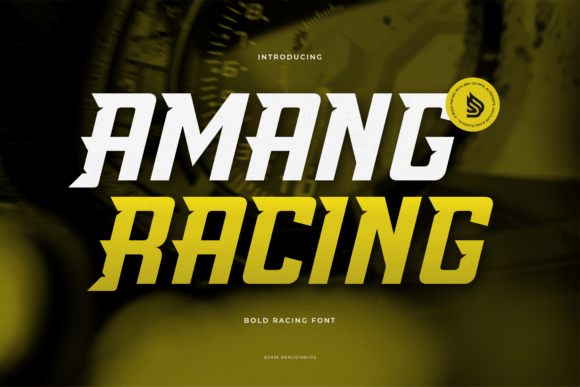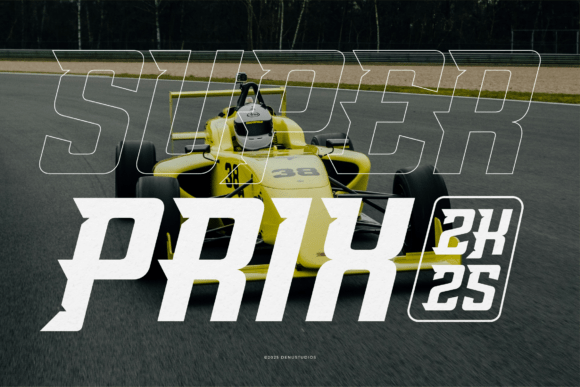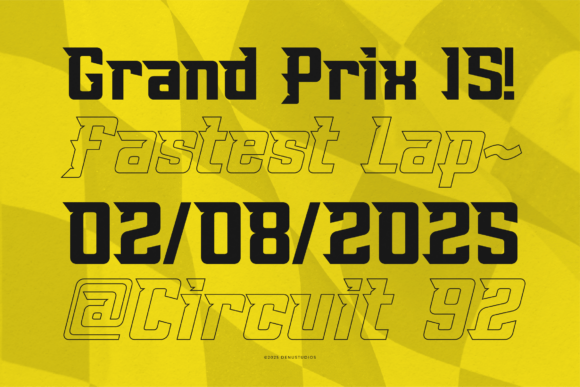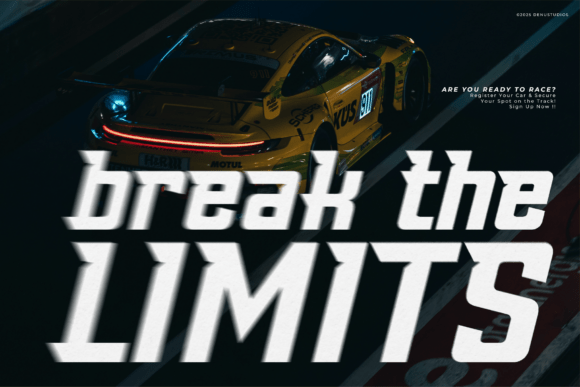
Amang Racing Font
About the Amang Racing Font
The Amang Racing Font is here to transform your projects with its distinctive character and style. Feel the adrenaline rush with Amang Racing, a bold, high-energy typeface designed for speed and power. With its sharp angles and slanted structure, this font is perfect for motorsports branding, racing posters, sports apparel, and futuristic designs. Whether you’re creating a dynamic logo or an action-packed headline, Amang Racing will take your design to the finish line.
Amang Racing’s aggressive slant and sharp geometry make it ideal for headlines, short impactful slogans, and logo design where a sense of speed and power is crucial. It excels in applications like posters, game branding, and packaging for high-performance products. However, its condensed letterforms and aggressive style are unsuitable for body text or UI elements requiring high readability. Avoid using it for long paragraphs or anything needing significant amounts of text.
For optimal visual balance, pair Amang Racing with a clean sans-serif like Futura or a geometric sans-serif like Montserrat for a modern, high-contrast look. Alternatively, a classic serif like Garamond can provide a sophisticated counterpoint, grounding the font’s energy while adding a touch of elegance. Avoid pairing it with other highly stylized fonts as this will likely create visual chaos.
The overall personality of Amang Racing is bold, aggressive, and modern. It is best suited for brands and projects aiming for a high-octane, energetic feel, conveying speed, power, and a touch of rebellion.
Amang Racing Font Usage Examples
Amang Racing Font Example